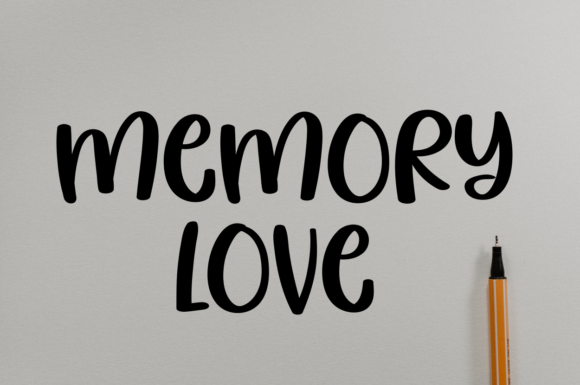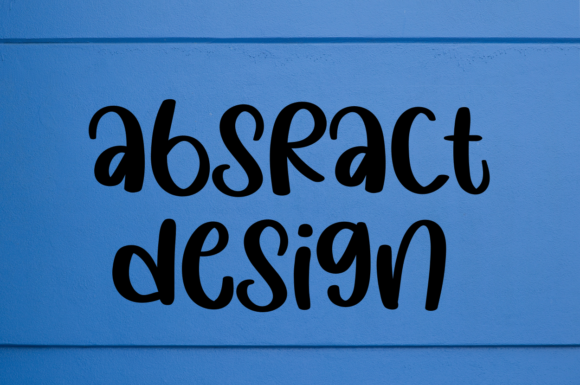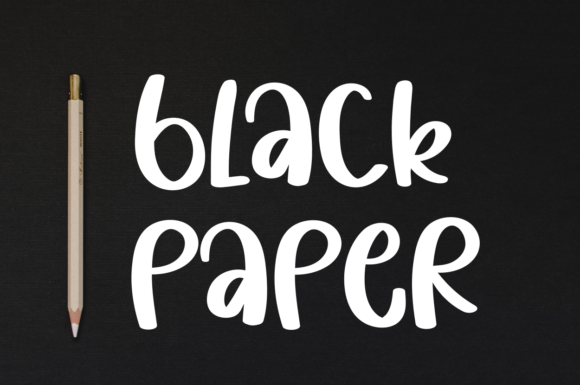
Introducing Drive Winter Font: The Perfect Addition to Your Crafty Projects
Are you a designer or crafter looking for a unique and trendy font to elevate your projects? Look no further than Drive Winter Font! This fun and handwritten font is perfect for adding a personal touch to your crafty ideas, from letterheads and titles to stationery and more.
What Makes Drive Winter Font So Special?
Drive Winter Font boasts an original look that is sure to appeal to a wide range of crafty enthusiasts. Its handwritten style gives it a personal and approachable feel, making it perfect for projects that require a touch of warmth and personality. Whether you’re creating a custom letterhead, designing a set of greeting cards, or crafting a unique title, Drive Winter Font is the perfect choice.
Key Features of Drive Winter Font
• Handwritten style: Drive Winter Font features a beautiful, handwritten style that adds a personal touch to any project.
• Trendy and modern: This font is perfect for crafty projects that require a modern and trendy look.
• Versatile: Drive Winter Font can be used for a wide range of projects, from letterheads and titles to stationery and more.
• Easy to read: Despite its handwritten style, Drive Winter Font is easy to read and understand, making it perfect for projects that require clear communication.
How to Use Drive Winter Font in Your Projects
Drive Winter Font is incredibly versatile and can be used in a variety of projects. Here are a few ideas to get you started:
• Letterheads and titles: Add a personal touch to your letterheads and titles with Drive Winter Font.
• Stationery: Create custom stationery sets, including notecards, greeting cards, and more.
• Signs and posters: Use Drive Winter Font to create eye-catching signs and posters for your business or personal projects.
• Digital projects: Drive Winter Font can also be used in digital projects, such as social media graphics, blog posts, and more.
Why Choose Drive Winter Font?
With so many fonts available, why choose Drive Winter Font? Here are a few reasons why this font stands out from the rest:
• Unique and original: Drive Winter Font features a unique and original look that will set your projects apart from the rest.
• High-quality design: This font is designed with high-quality craftsmanship in mind, ensuring that it looks great in any project.
If you’re looking for a fun and trendy font to elevate your crafty projects, look no further than Drive Winter Font. With its handwritten style, modern look, and versatility, this font is perfect for a wide range of projects. Whether you’re a designer or crafter, Drive Winter Font is sure to become a favorite in your collection.